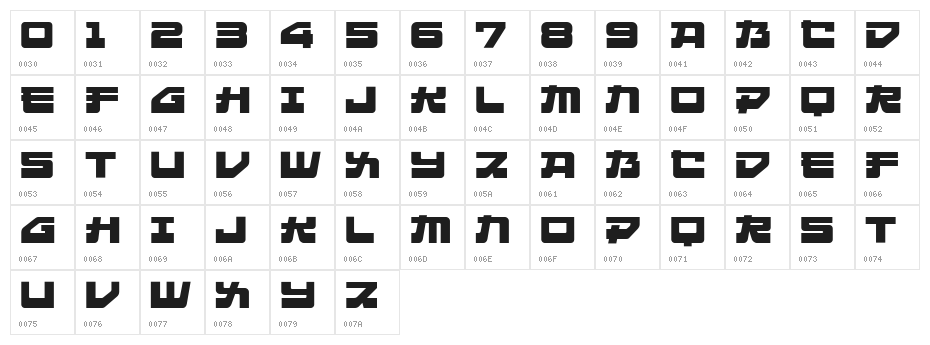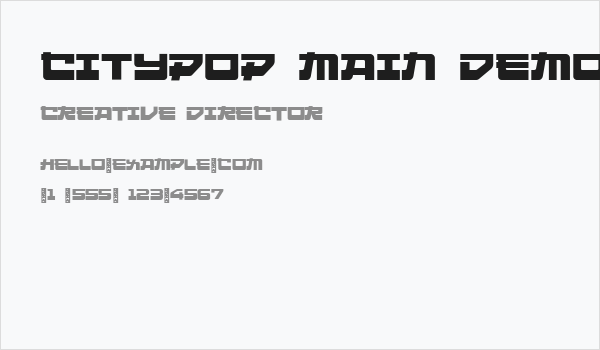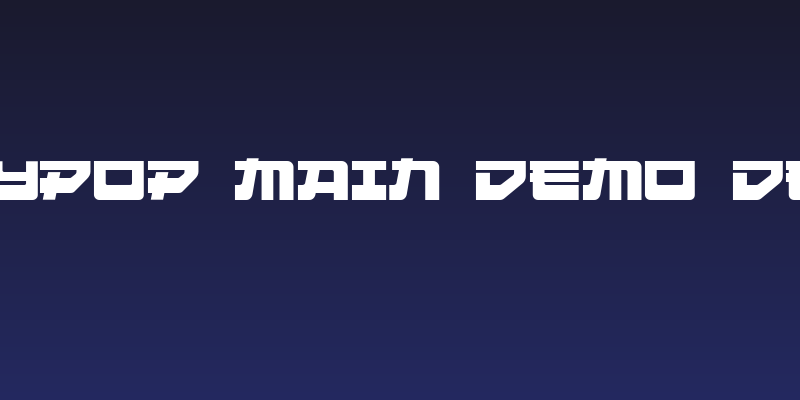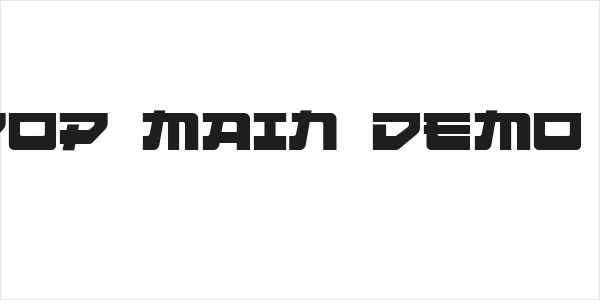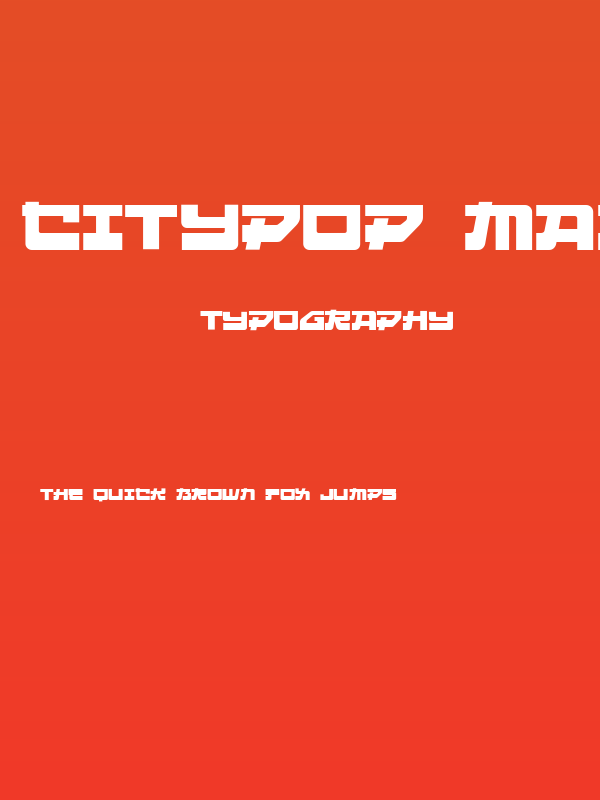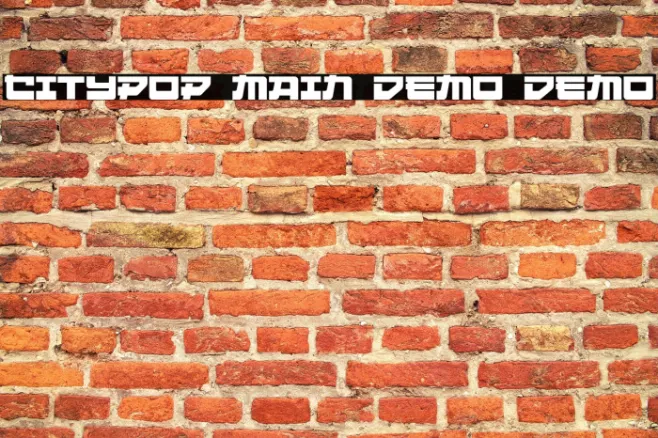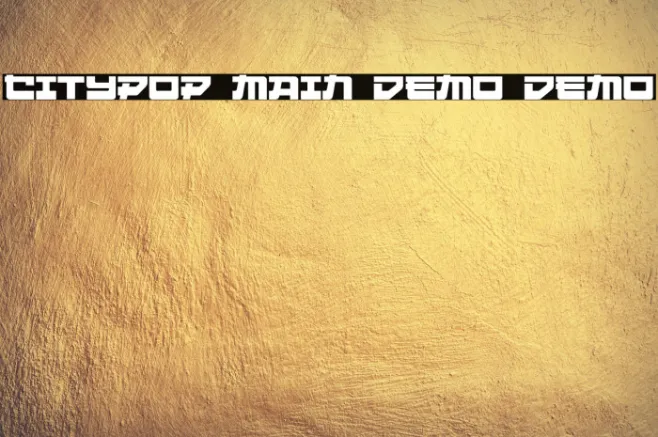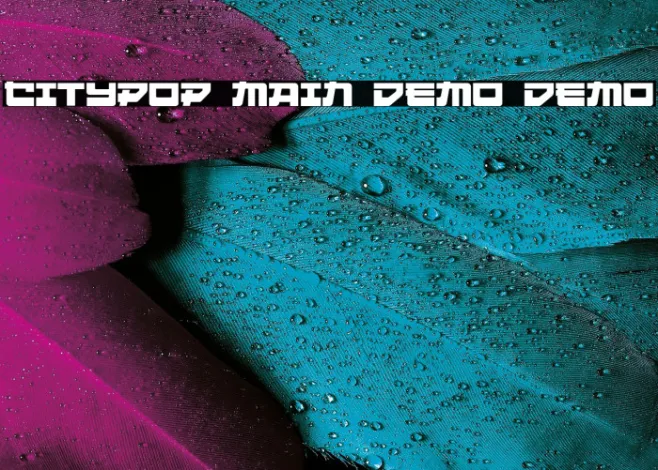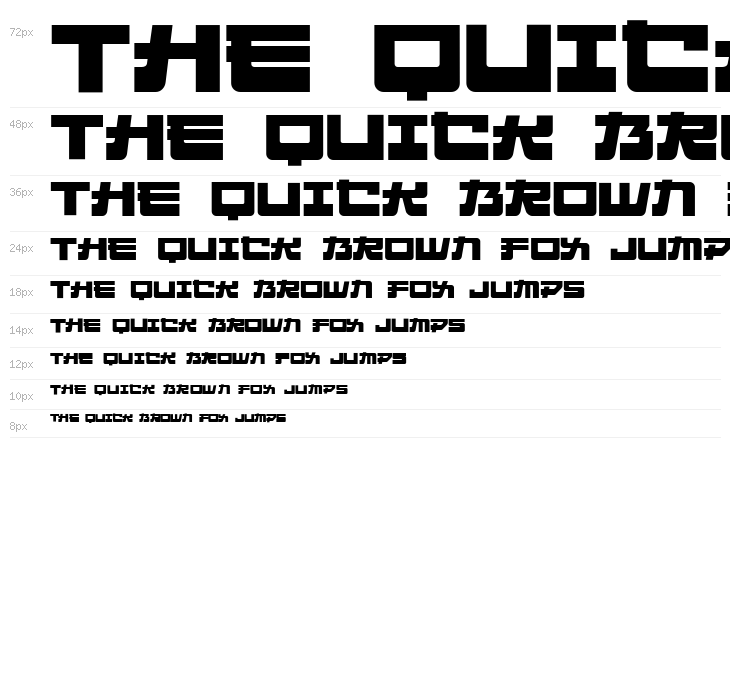
Citypop Main DEMO DEMO Font
Citypop Main DEMO DEMO Description
This font features a bold, futuristic design with a strong geometric influence. The characters are constructed with sharp angles and straight lines, giving it a modern and edgy appearance. The uppercase letters are particularly striking, with a blocky and robust form that commands attention. The lowercase letters maintain the same geometric style, ensuring consistency across the typeface. The numerals are equally bold and follow the same design principles, making them highly legible and visually impactful. This font is ideal for projects that require a contemporary and dynamic look.
| Proposed Projects | Ideal for branding, posters, album covers, and digital media that require a modern and bold aesthetic. |